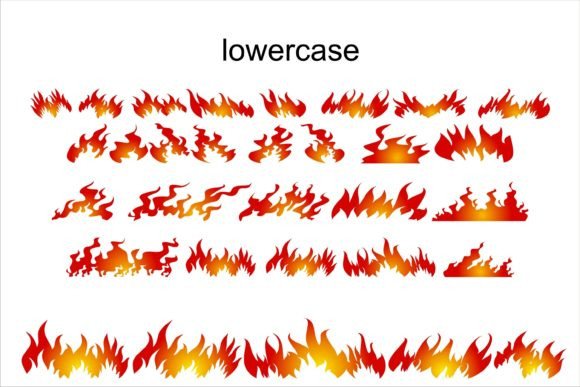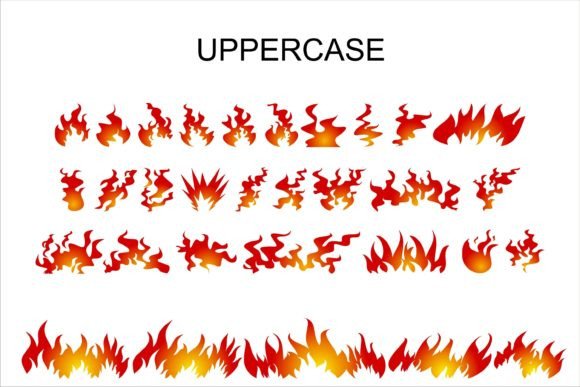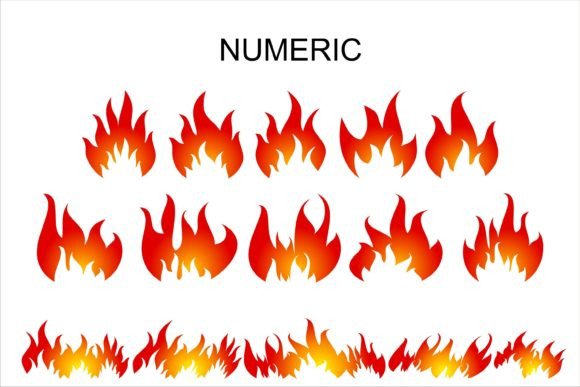
ABOUT FIRE FLAMES FONT
“Fire Flames” is a captivating font that features a collection of flame illustrations in various shapes and styles. This font offers a unique and eye-catching visual element that can greatly enhance your designs. With its fiery theme, it is particularly well-suited for projects that require a bold and dynamic look.
When you incorporate “Fire Flames” into your designs, you instantly add a sense of energy, intensity, and excitement. The flame illustrations bring movement and life to your creations, making them ideal for cover designs of books, magazines, comics, and other cartoon-themed projects. Whether you’re working on a fantasy novel, a superhero comic, or a vibrant magazine cover, this font will undoubtedly make your design stand out.
The versatility of “Fire Flames” allows you to explore different ways to use the flame illustrations. You can use them as decorative elements, create fiery patterns, or even combine them to form custom illustrations. The diverse shapes and styles of the flames offer you flexibility in expressing your creativity and achieving the desired visual impact.
In addition to cover designs, “Fire Flames” can be effectively used in various other design applications. It can bring a fiery touch to posters, flyers, promotional materials, and digital artwork. The bold and dynamic nature of the font adds a sense of power and excitement, making it an ideal choice for projects that aim to grab attention and create a lasting impression.
Whether you’re designing for a fire-themed event, a sports team, or simply want to add a fiery element to your creations, “Fire Flames” provides the perfect set of illustrations to enhance your designs. The font’s ability to evoke emotions and create a visually striking impact makes it a valuable asset in your fonts’ library.
So, unleash the power of “Fire Flames” and let it ignite your creativity. Incorporate these captivating flame illustrations into your designs, and watch as they add intensity, energy, and a touch of excitement to your projects.